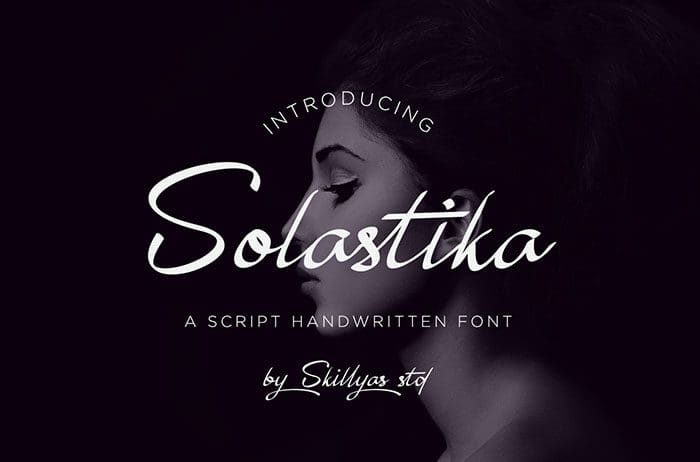
Solastika Handwritten Font
Solastika is an elegant and dainty Handwritten Font that features sweet and delicate swashes. This original look will appeal to a wide range of crafty ideas, from letterheads and titles, to stationery. Thanks to skillyas std for sharing this font! Take a look at this portfolio for more of his stunning fonts.